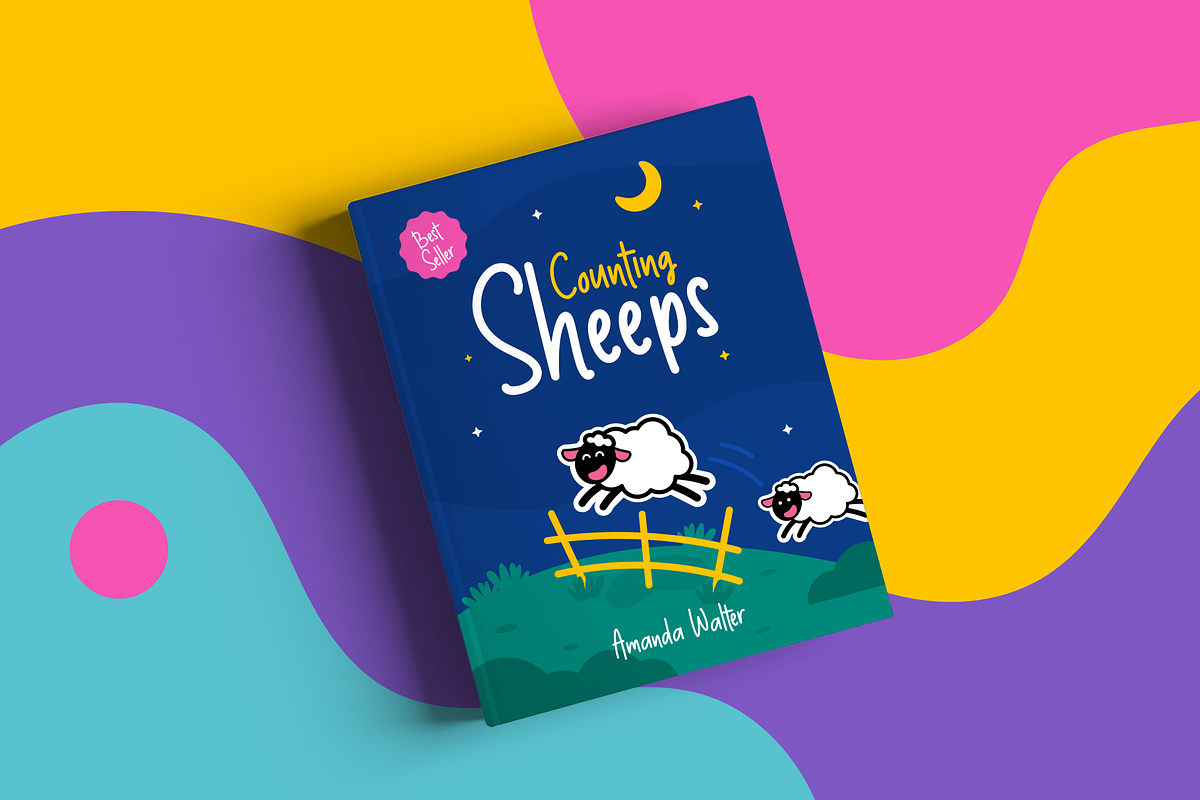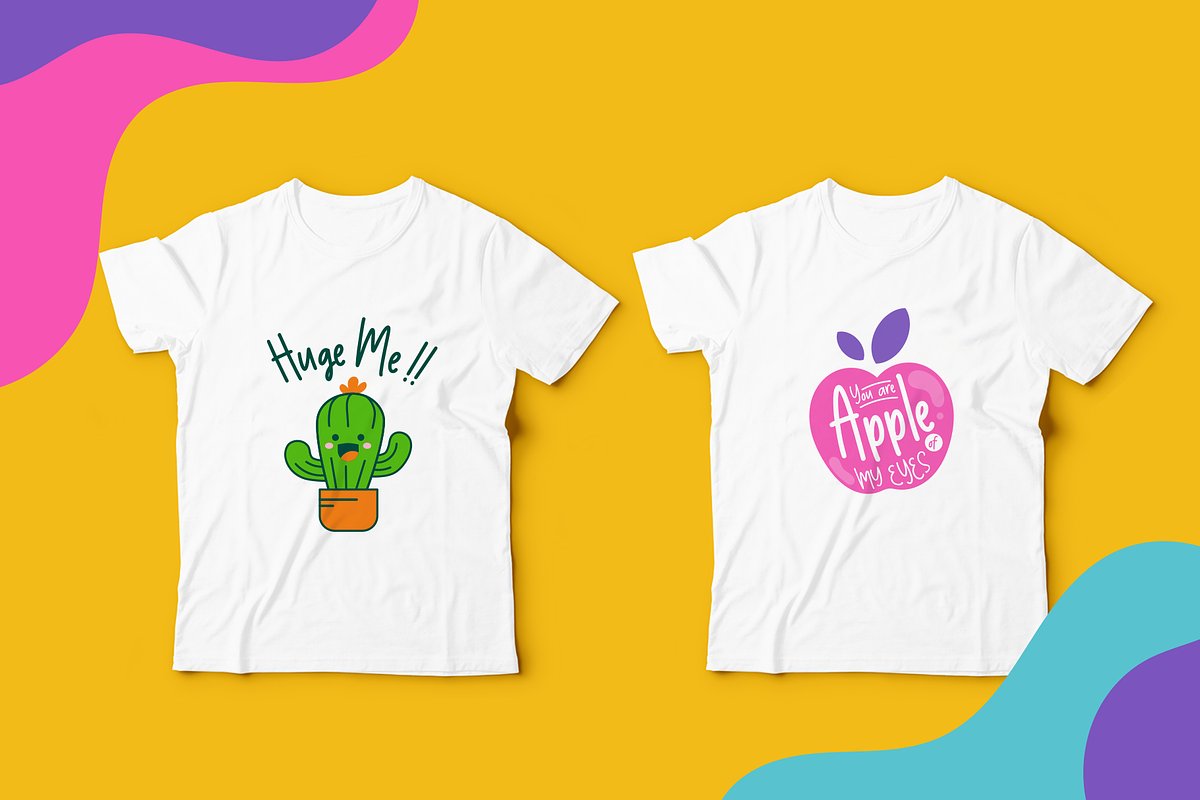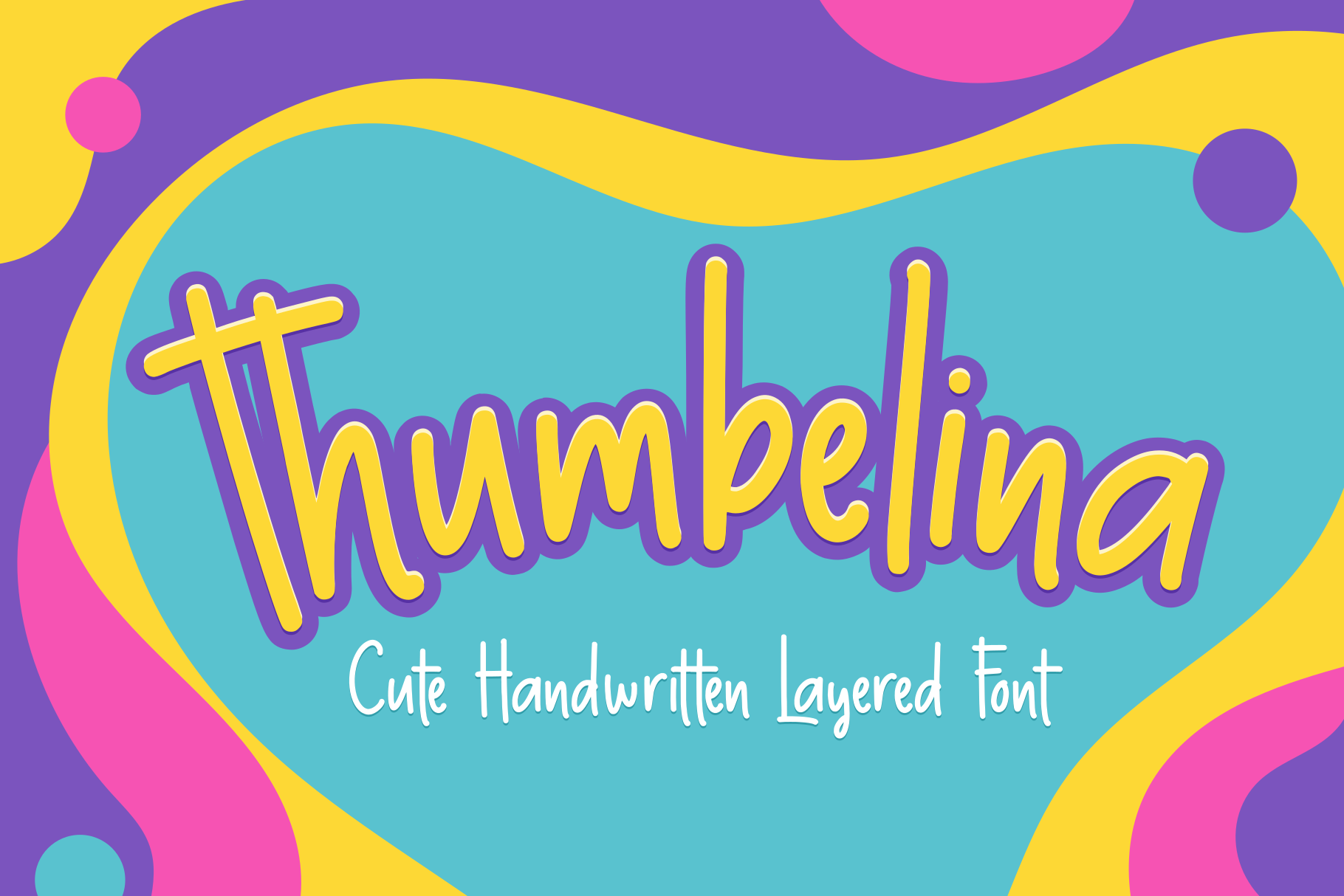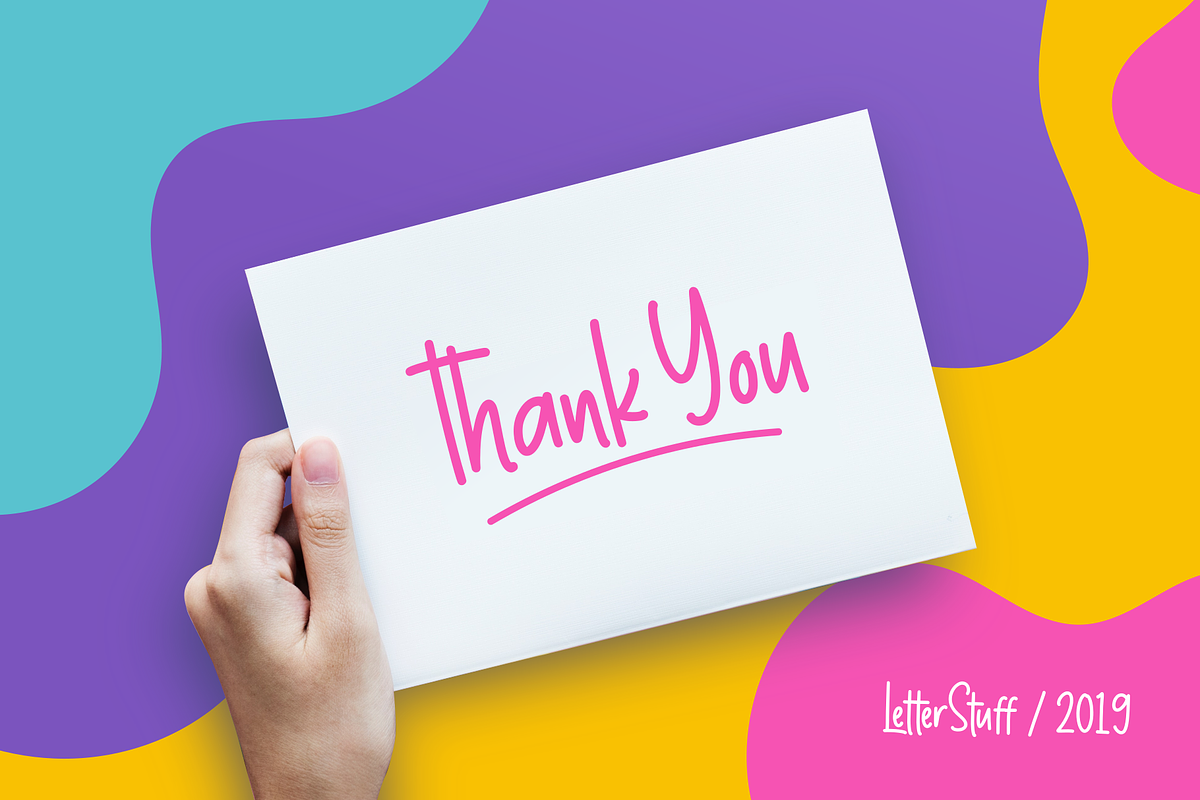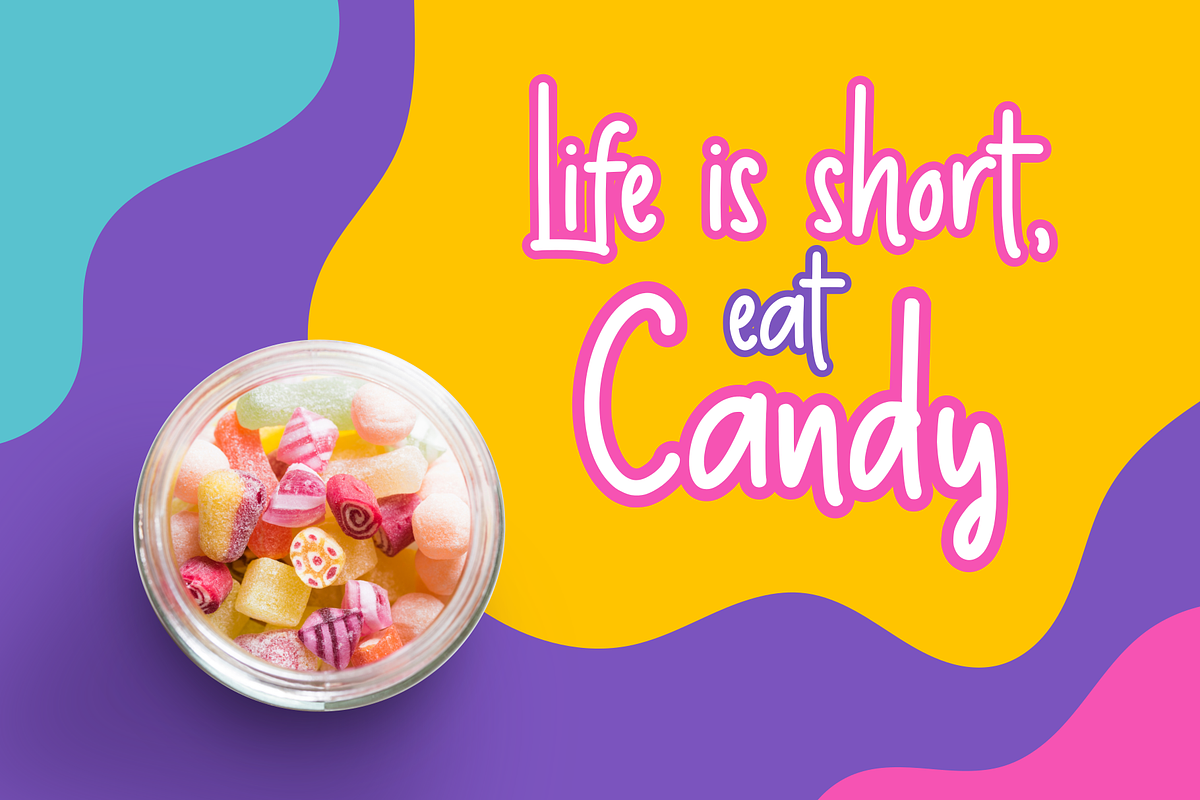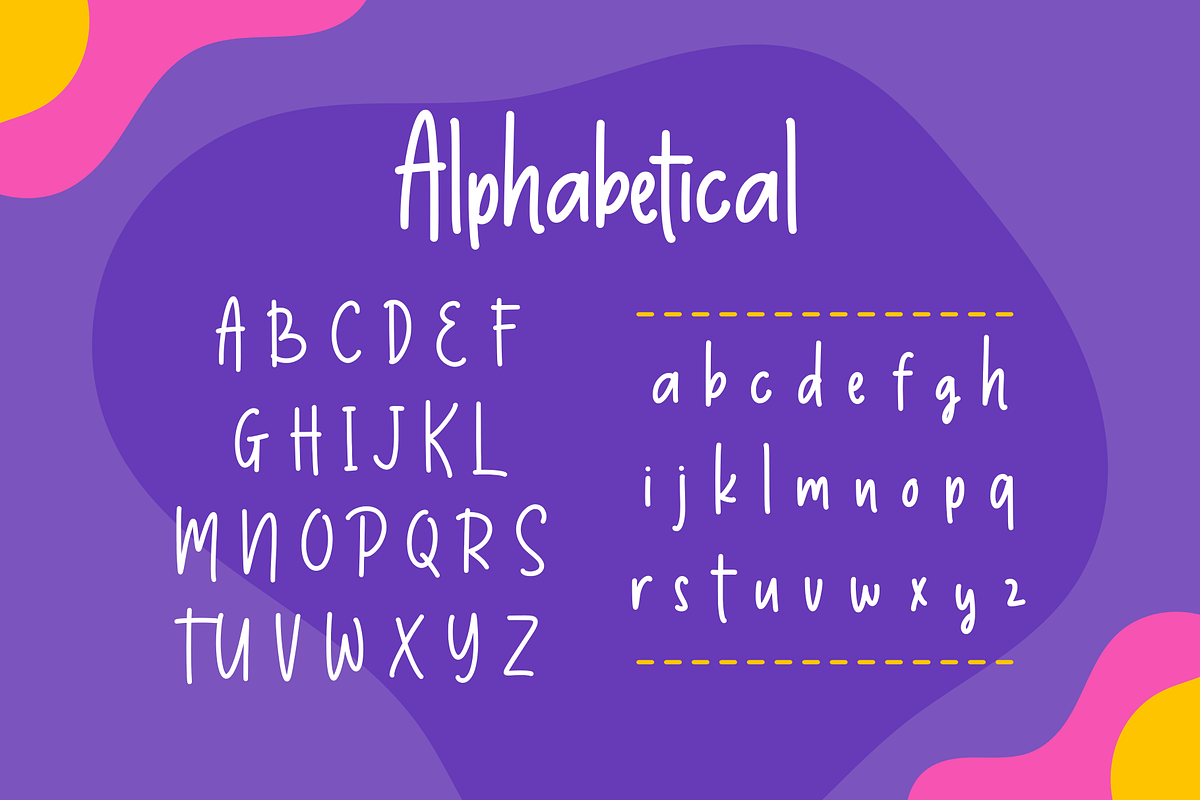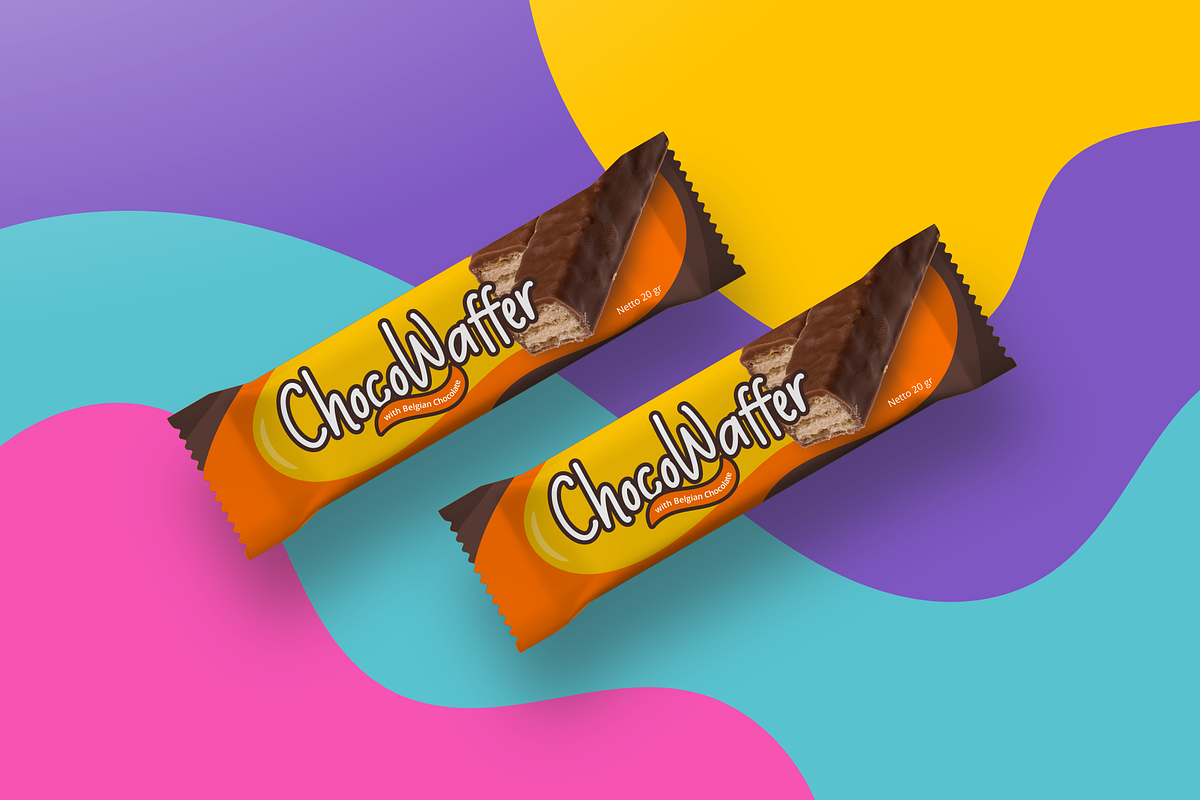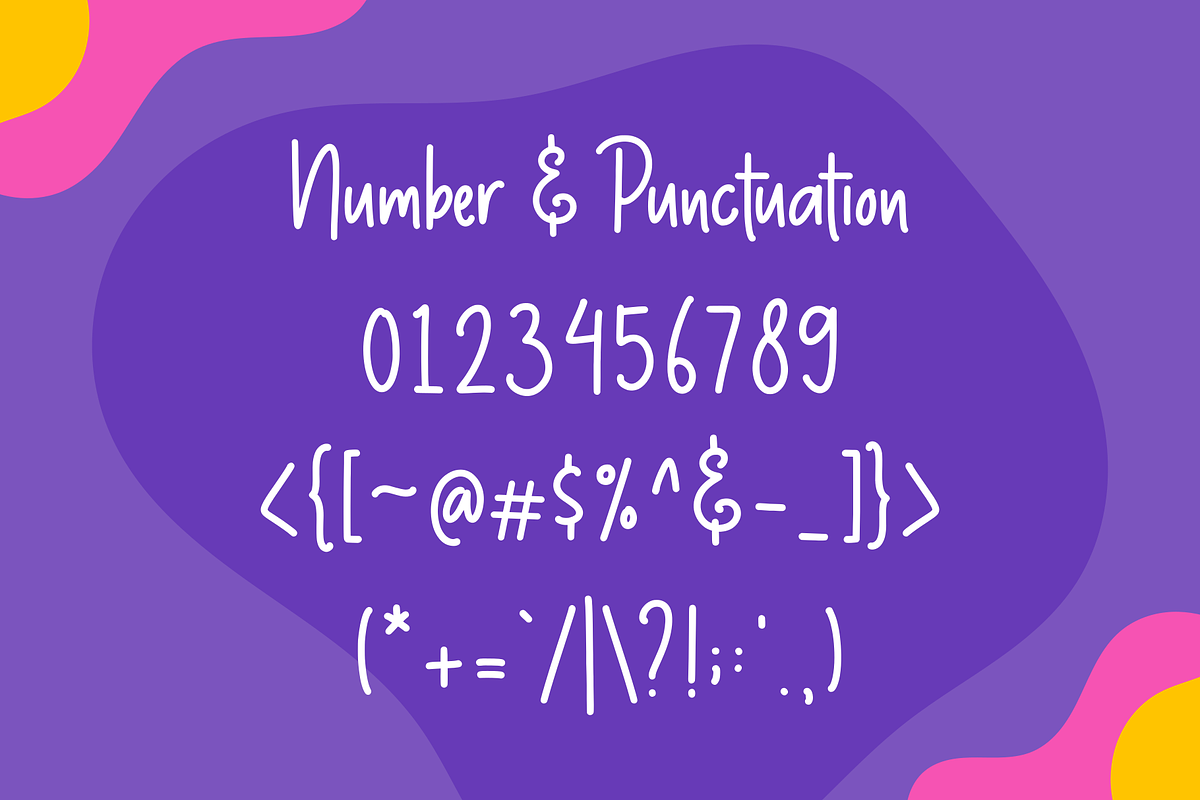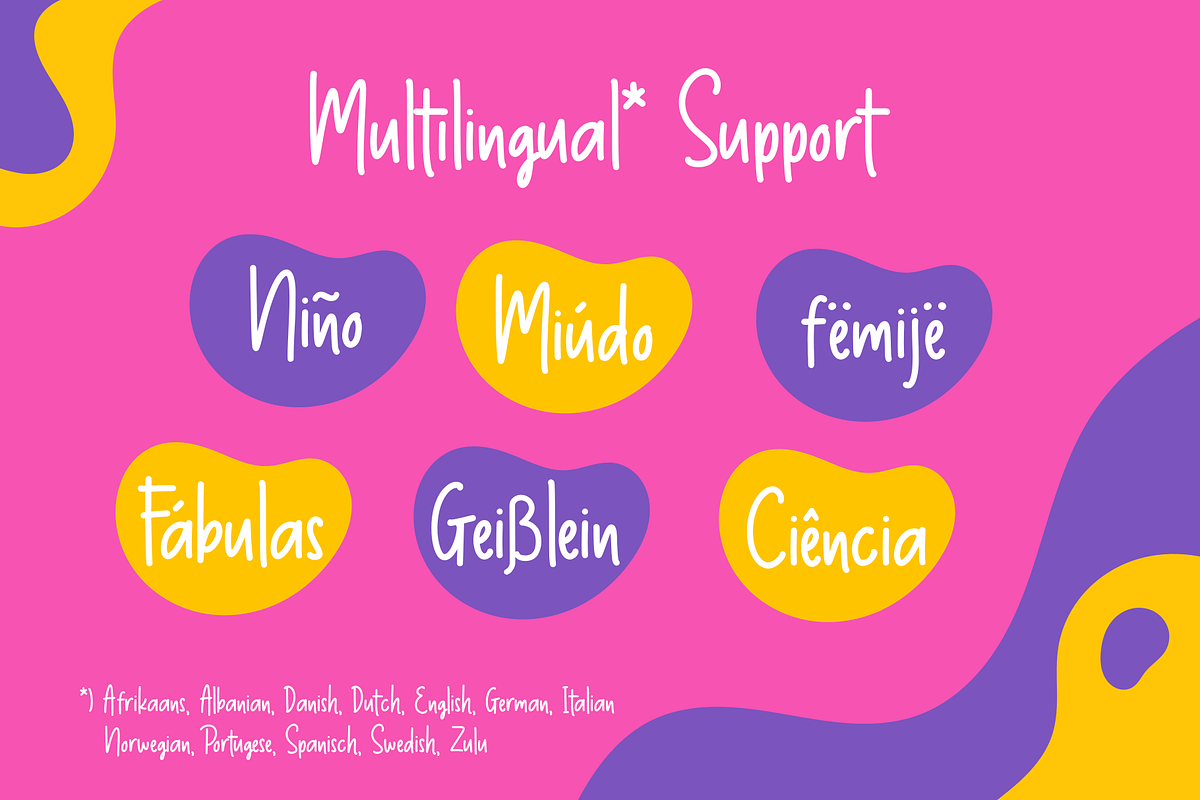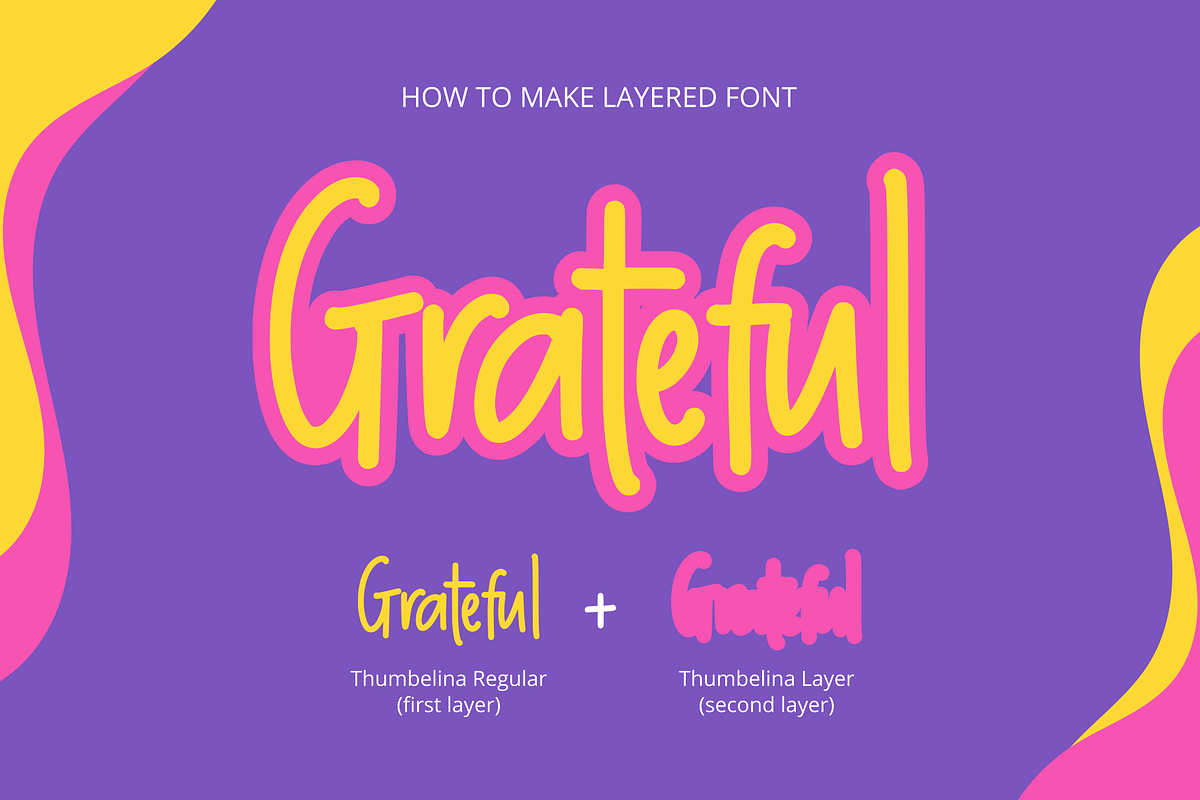
Thumbelina - Cute Layered Font
Introducing Thumbelina, a cute handwritten layered font. With fun and tiny characters, rounded shape, based on handwriting style, it’s perfect for your cute and fun design need such as children book, quote, poster, t-shirt, craft design, and more.
- Multilingual support : Afrikaans, Albanian, Danish, Dutch, English, German, Italian, Norwegian, Portugese, Spanisch, Swedish, Zulu